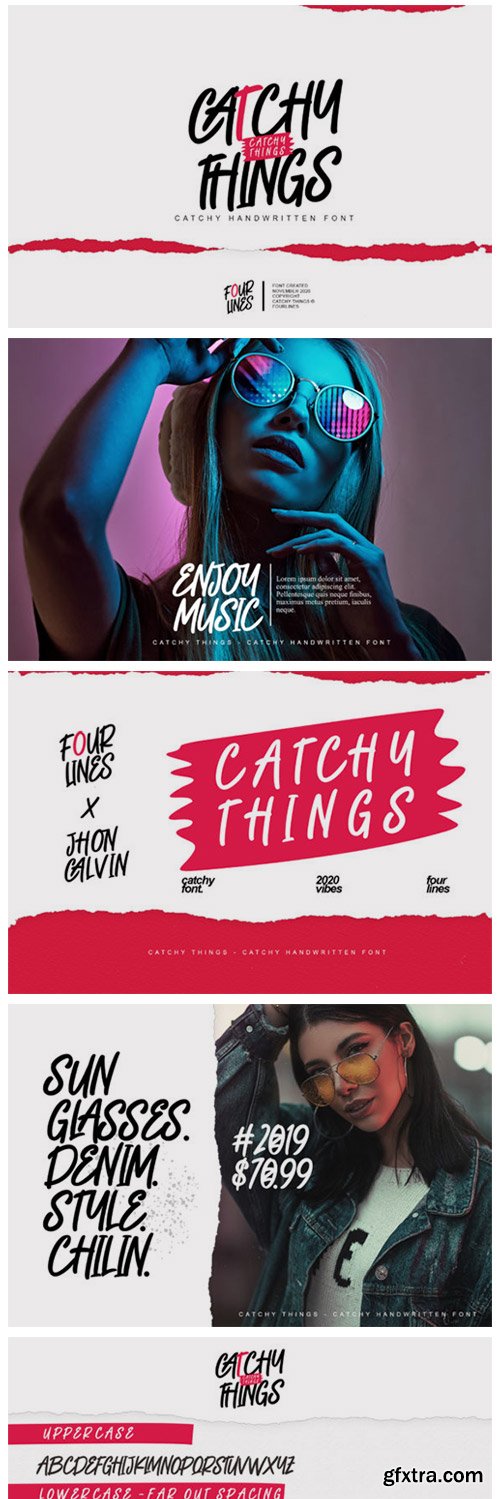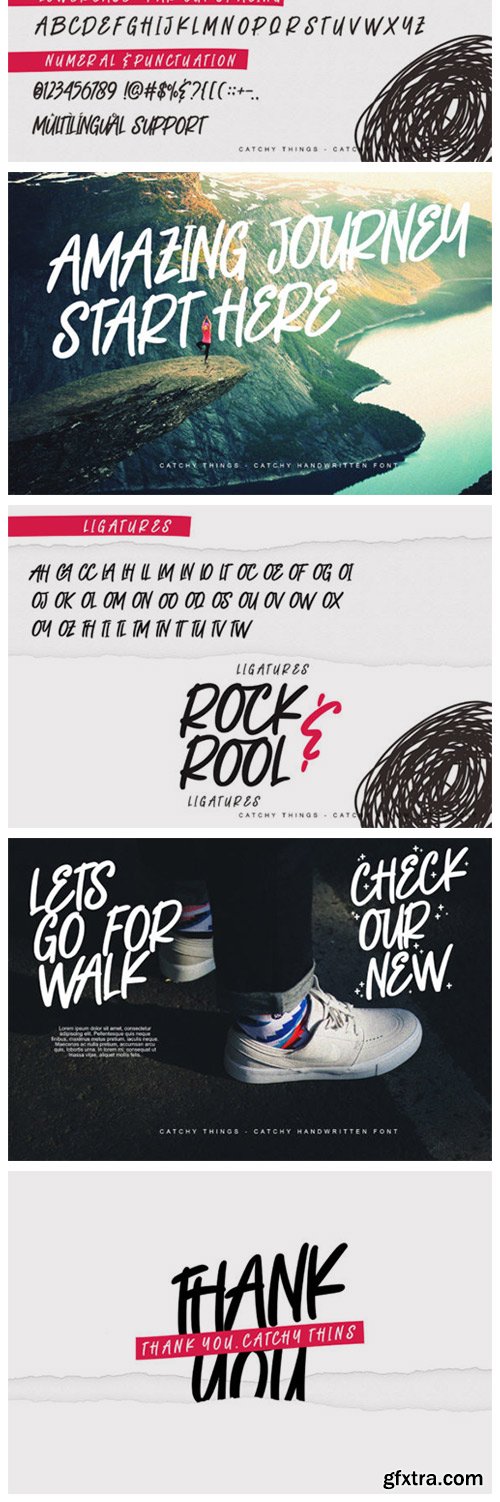
Catchy Things Font
Catchy Things is a super trendy and urban styled display font. It is suitable for a wide range of branding, product packaging, invitation, quote, t-shirt, label, poster, logo that you wish to create.